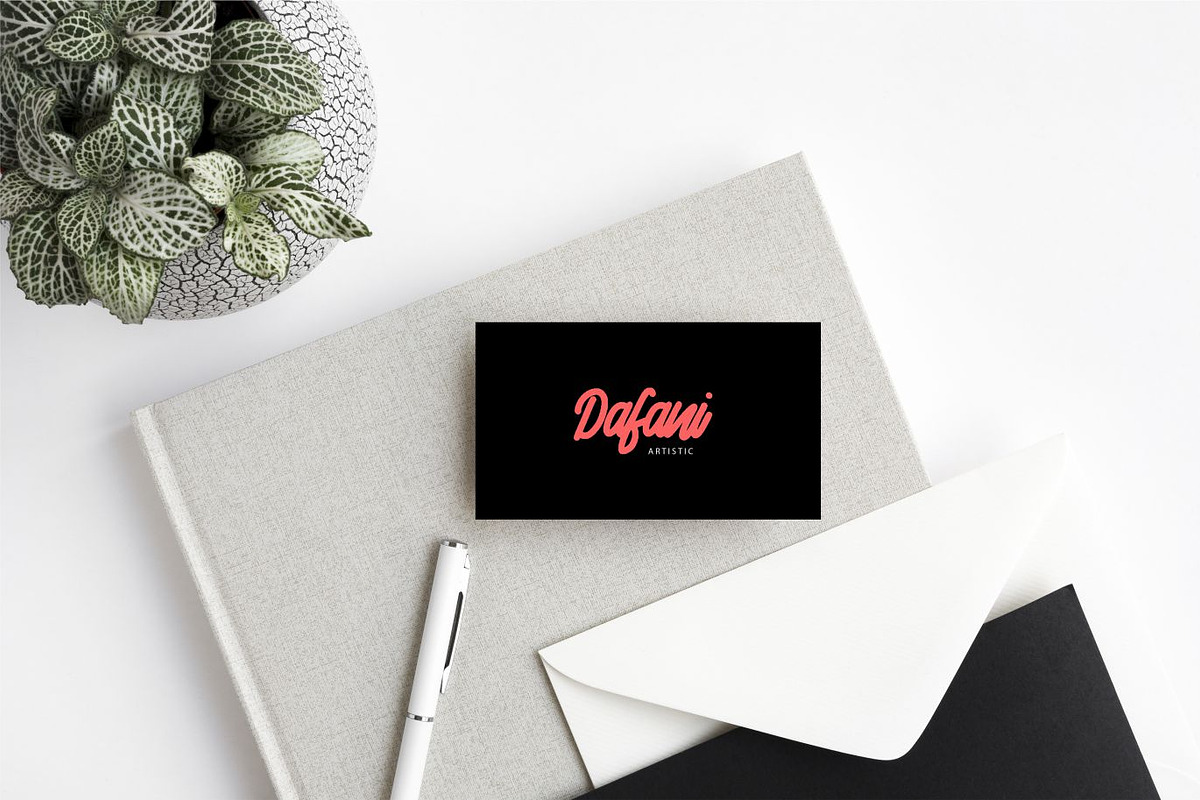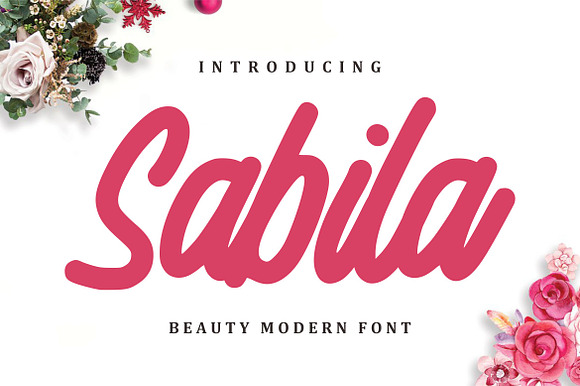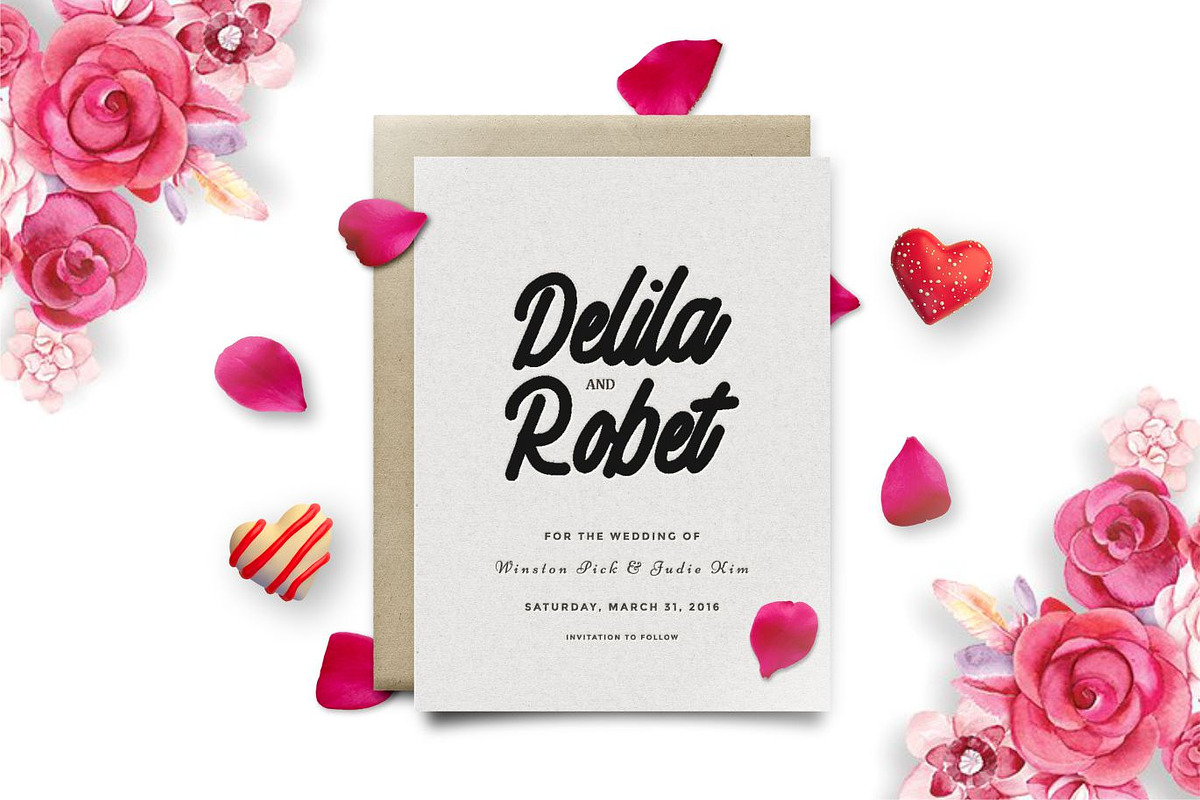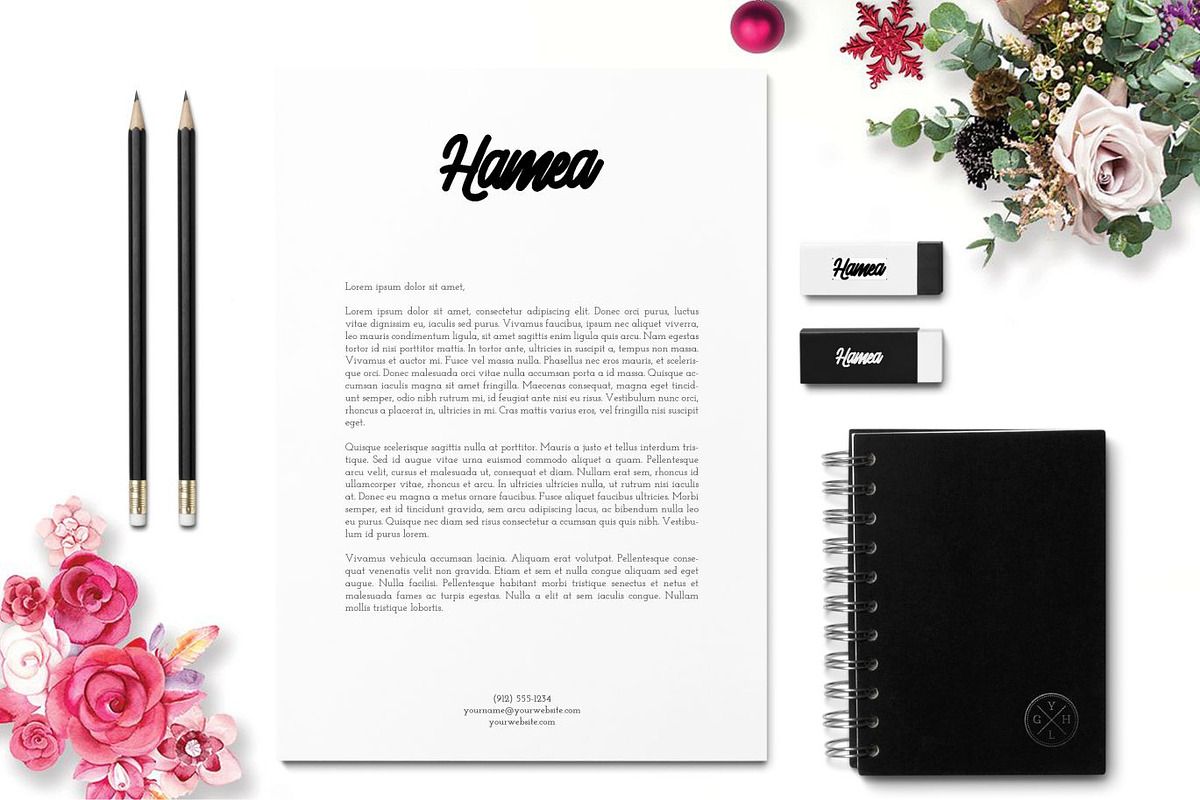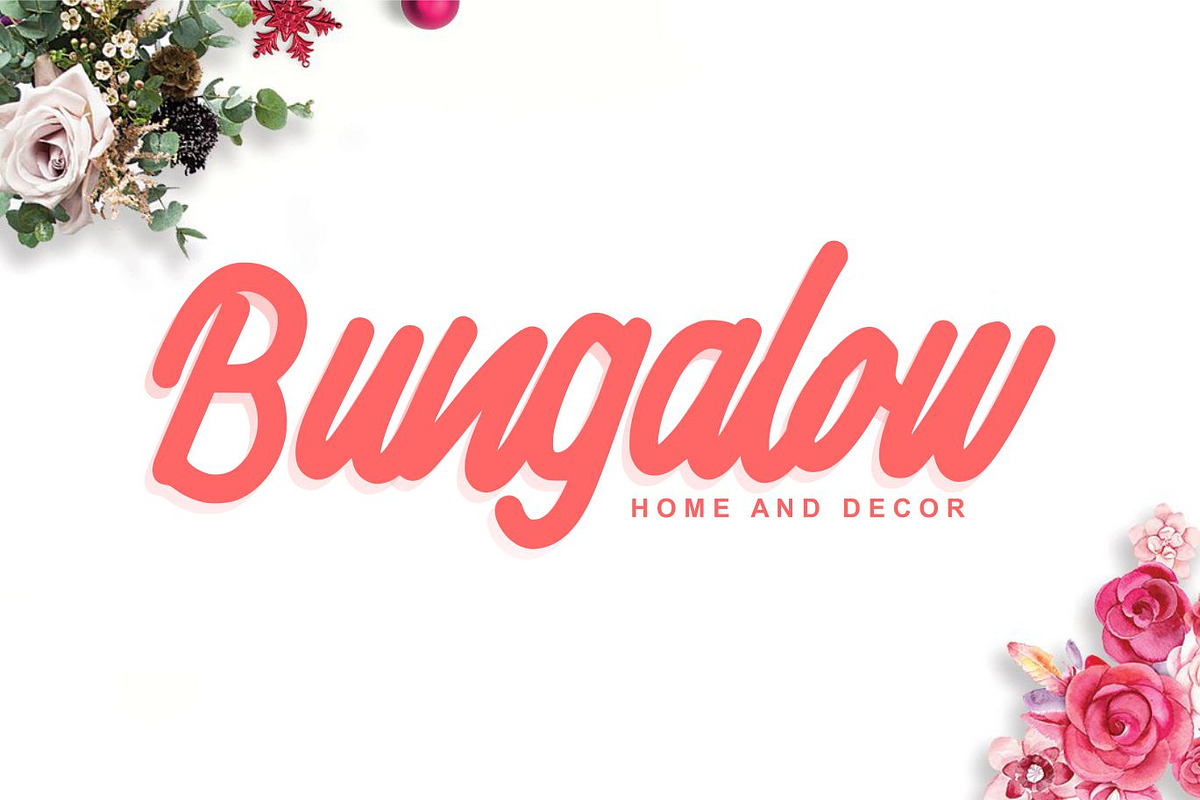
Sabila - Beauty Modern Font
So beautiful on invitation like greeting cards, branding materials, business cards, quotes, posters, and more!
- Alternates and Ligatures
Sabila - Beauty Modern Font by KAZ by IanMikraz Studio fits naturally into Branding, posters, packaging, typography.